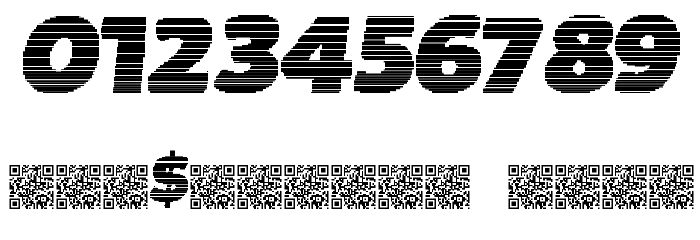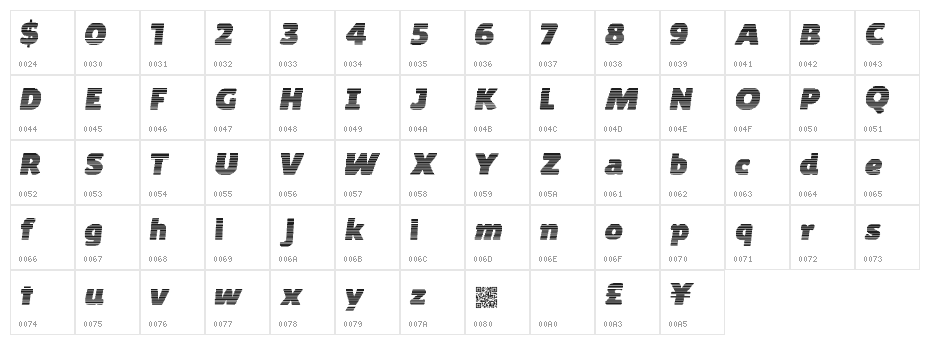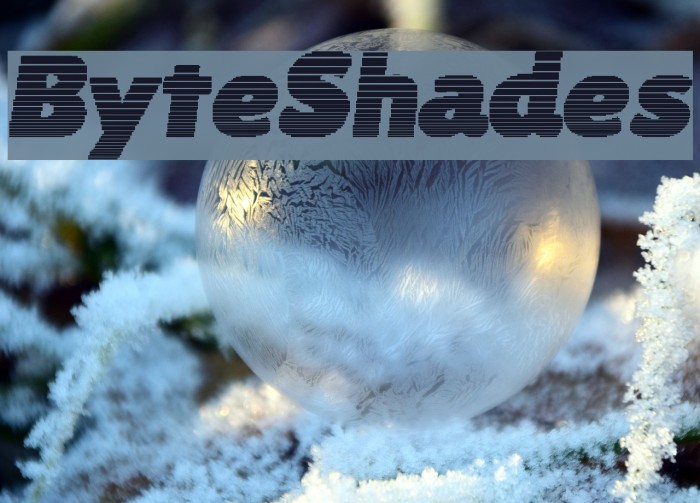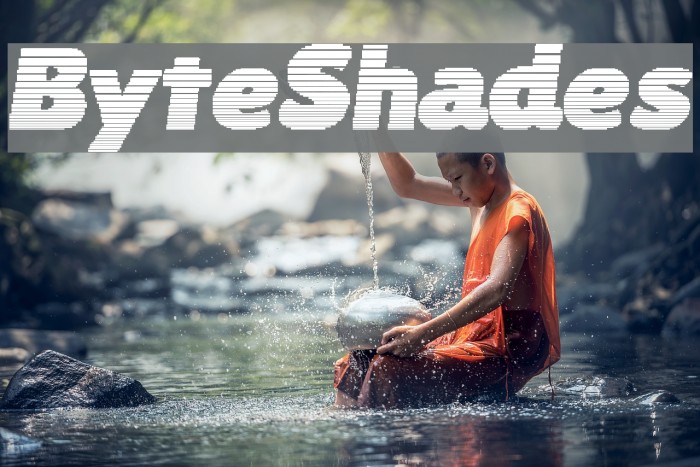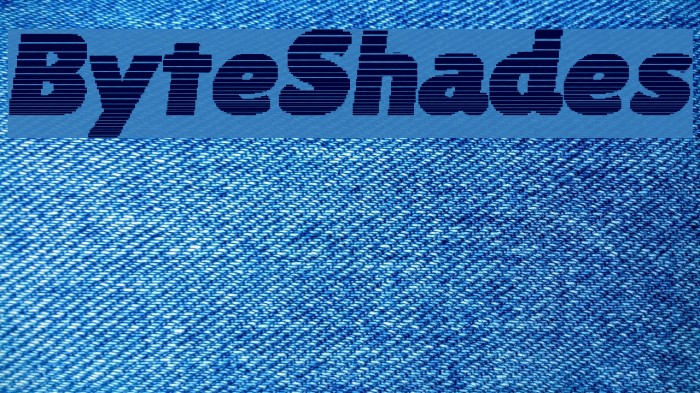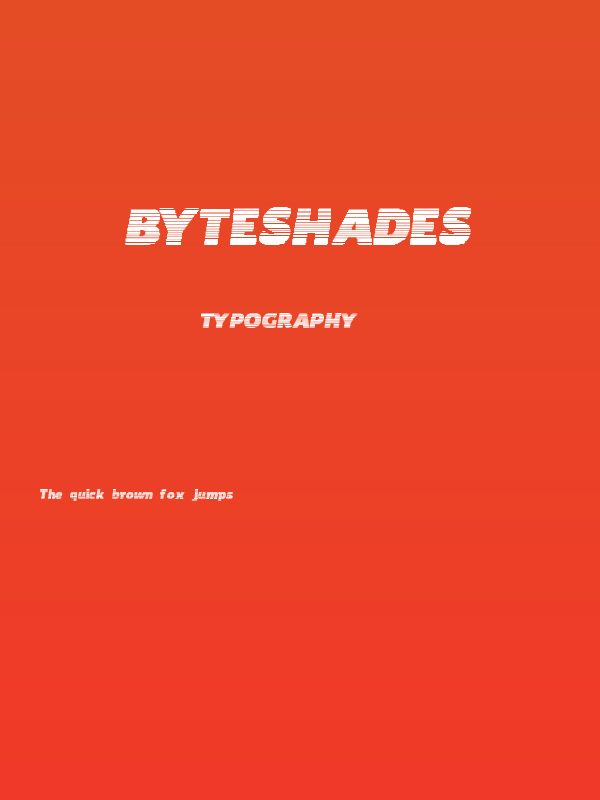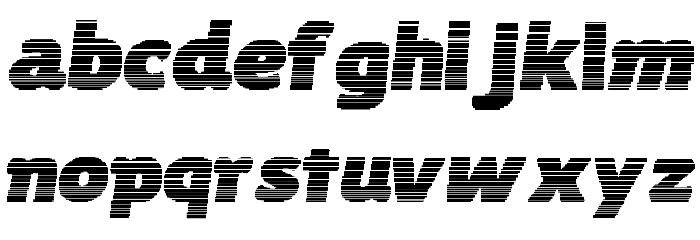
ByteShades Font
ByteShades Description
This font features a bold and dynamic design with a distinctive striped pattern running horizontally through each character. The uppercase and lowercase letters, as well as numbers and special characters, maintain a consistent style that emphasizes a modern and tech-inspired aesthetic. The bold weight and unique pattern make it stand out, ideal for projects that require a futuristic or digital feel. The characters are well-proportioned, with a slightly condensed width that enhances readability while maintaining a strong visual impact. This font is perfect for creating eye-catching headlines, logos, and branding materials that aim to convey innovation and modernity.
| Proposed Projects | Ideal for tech branding, digital media, futuristic posters, and innovative product packaging. |